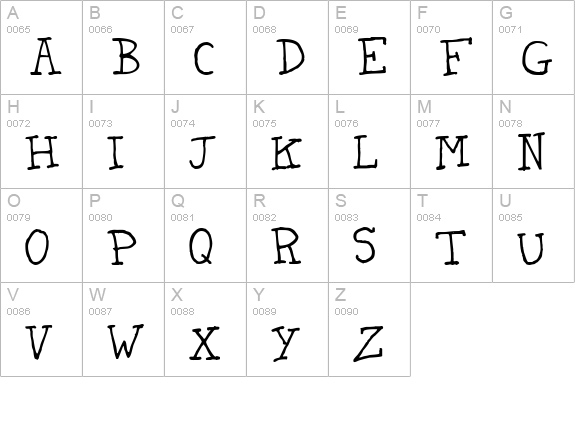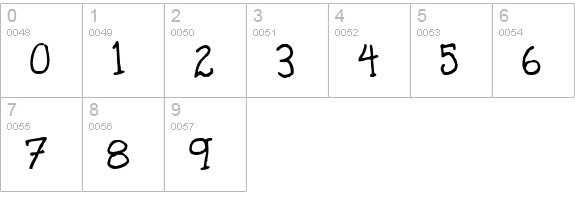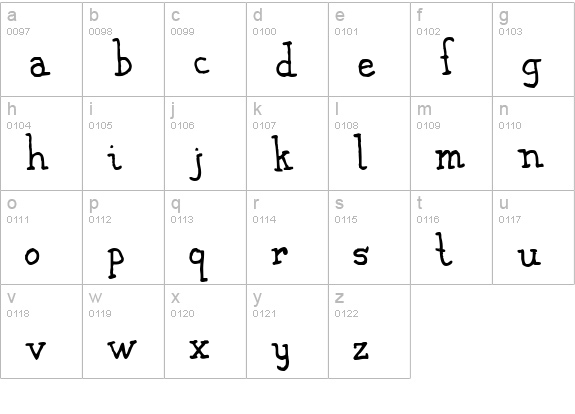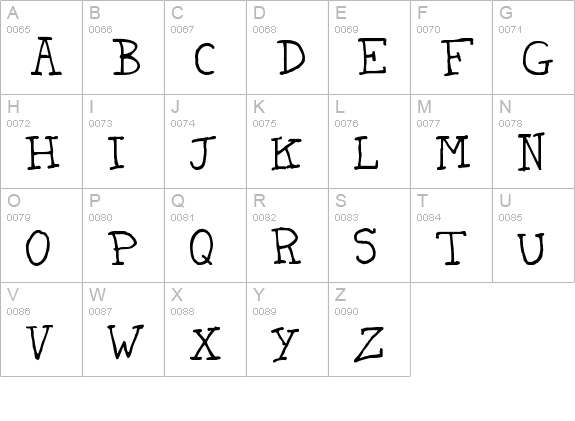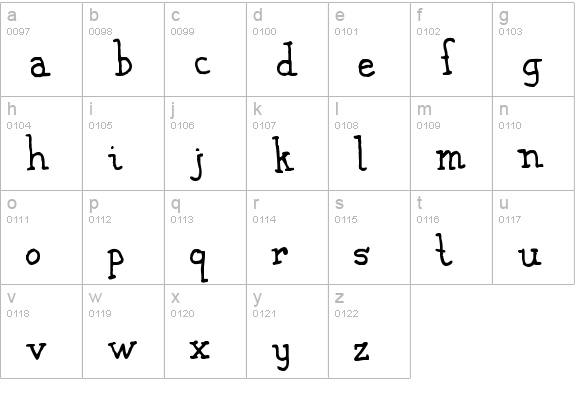
Koorear Font Details
Koorear font is a modern and stylish typeface that exudes elegance and sophistication. Its sleek lines and smooth curves make it perfect for a wide range of design projects, from logos to branding to invitations. This versatile font is sure to make your text stand out and leave a lasting impression. And the best part is, Koorear font is available for free download at FontsMarket.com! You can easily access this beautifully crafted font and start using it in your projects right away. Don't miss out on the opportunity to add this stunning typeface to your collection. Download Koorear font today and elevate your designs to the next level!